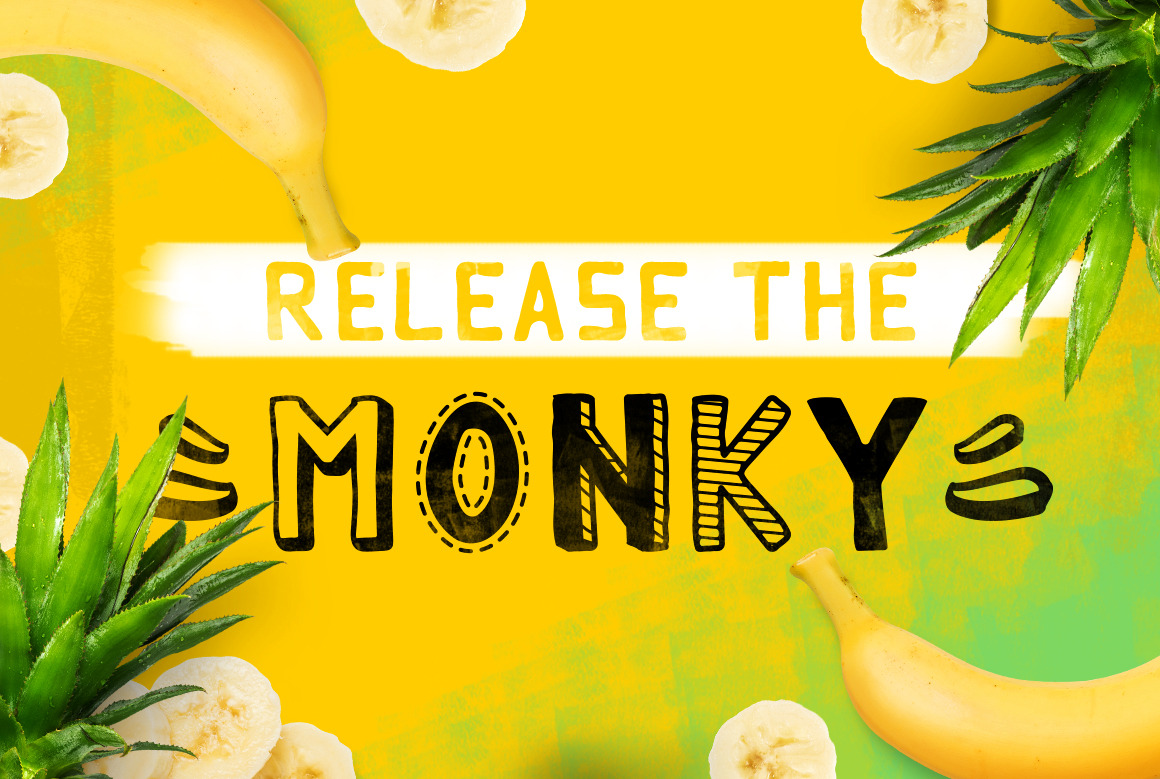
MONKY - 7 Styles Font
It's time.... It's time to release the Monky!
Monky is a fun and versatile font family with 7 different styles and 50+ bonus shapes. Create unique and fun designs that stand out like a monkey out of the jungle :)